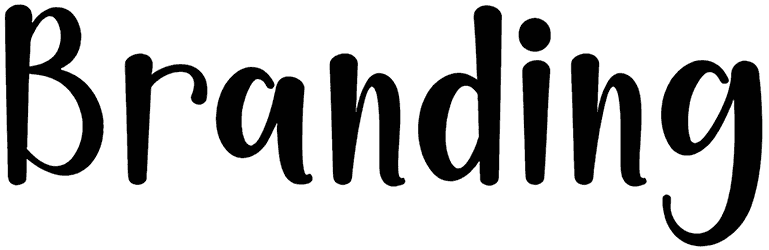
Branding Font
Branding font is the first word in terms of beauty and handwriting. If you pay attention to the characters, you can see that a particular order is observed in the letters of this handwritten font, which in other fonts pays less attention to this issue.
Some characters are thin and thick lines, and this contrast can make your text different from other designs, whether it is in a personal signature or wedding and birthday cards.